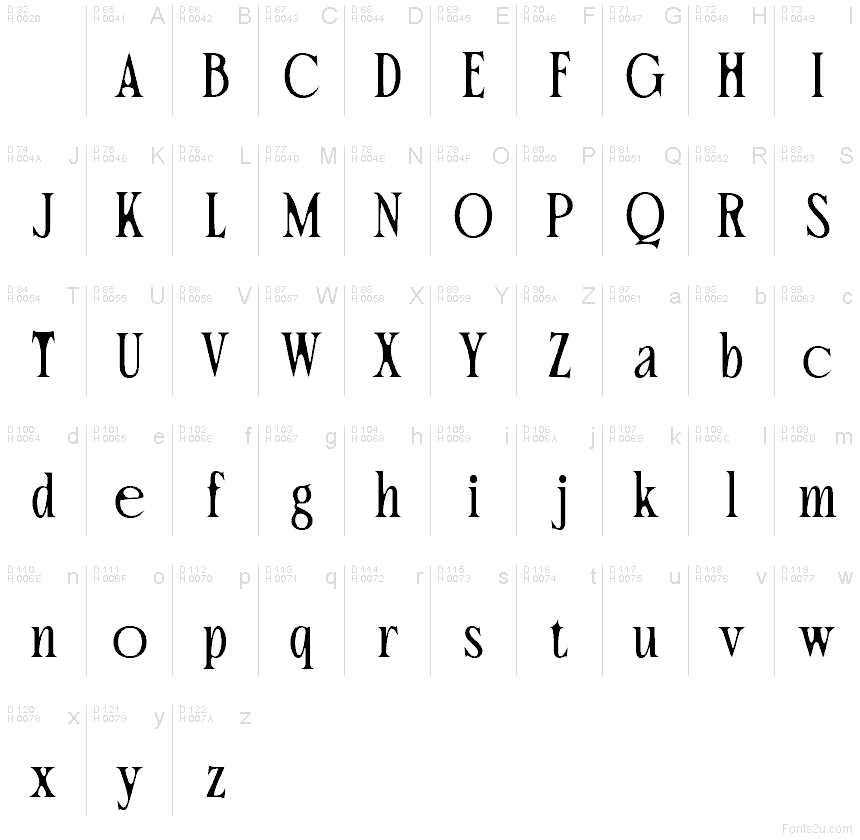
CSHenarDrawn-Regular Demo
CS Henar Drawn font by Craft Supply Co. leans into the CS Henar family’s elegance, then roughens the edges just enough to feel human. This is a free condensed hand-drawn serif display font with inky ridges, sculpted contrast, and tight vertical rhythm that squeezes drama into narrow spaces. The strokes feel etched rather than polished, giving headlines a tactile presence without losing sophistication.
Using CS Henar Drawn, titles snap into focus on book covers, boutique branding, wine or candle labels, fashion posters, editorial spreads, and artisanal packaging. The condensed proportions save space while those soft, chiseled edges add character, so you can go large and still read cleanly. For a simple pairing, set subheads in CS Henar to echo the voice and keep body text in a neutral sans. This free font shines on projects that want refinement with a hand-touched finish.